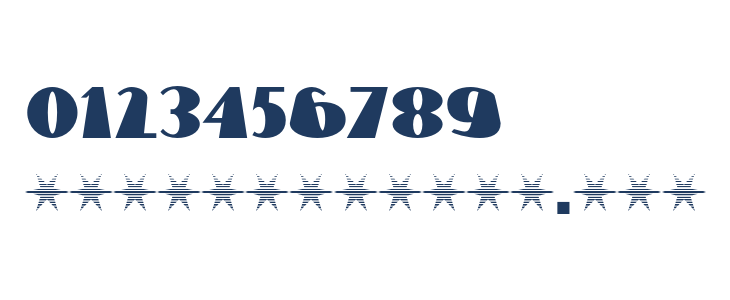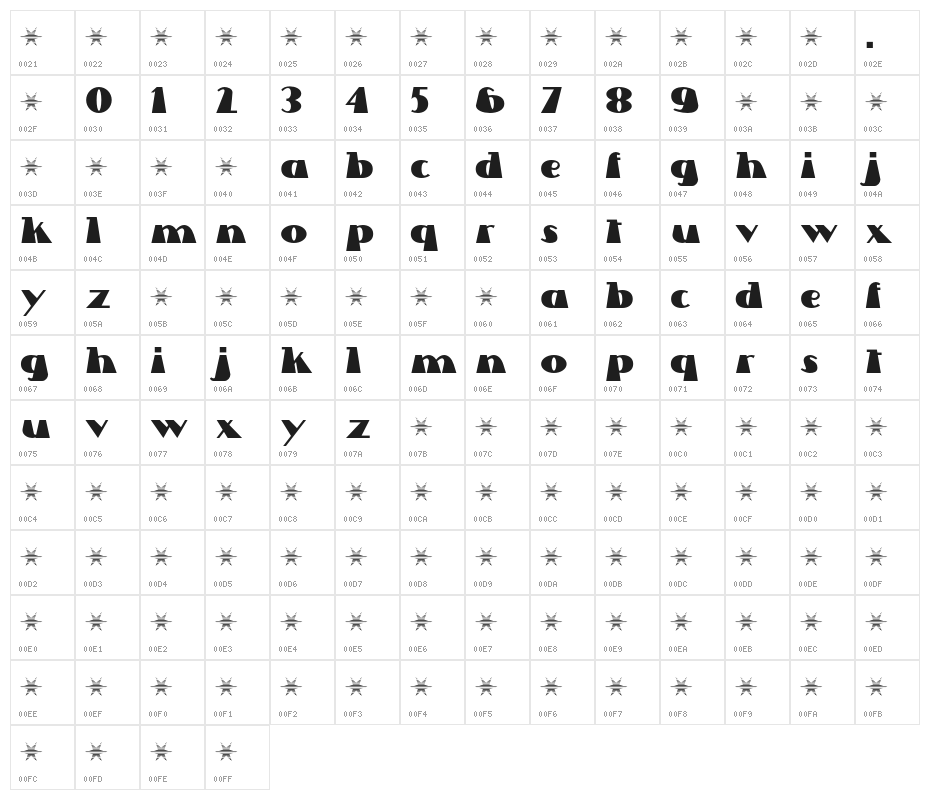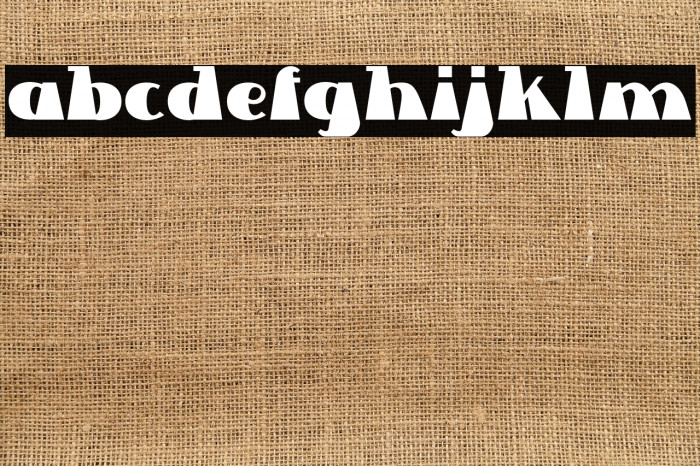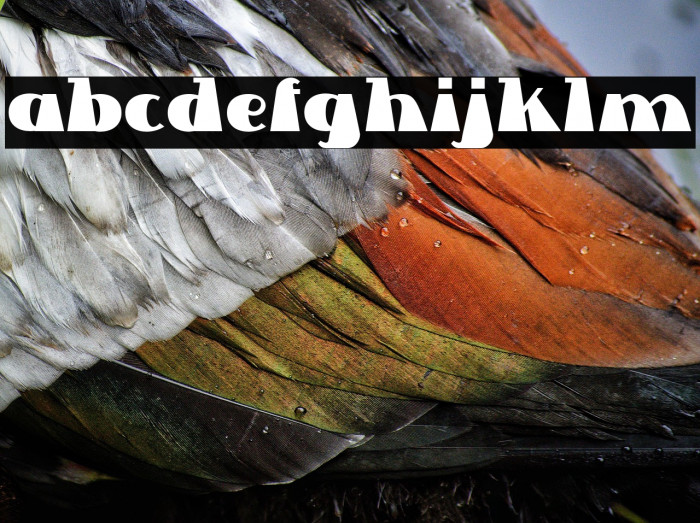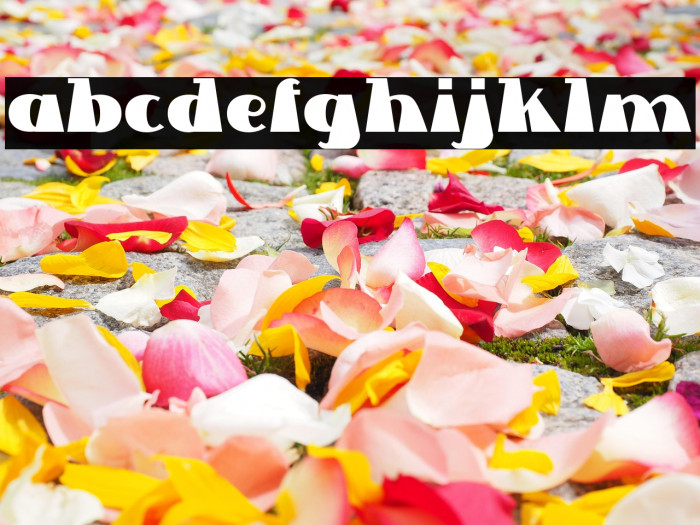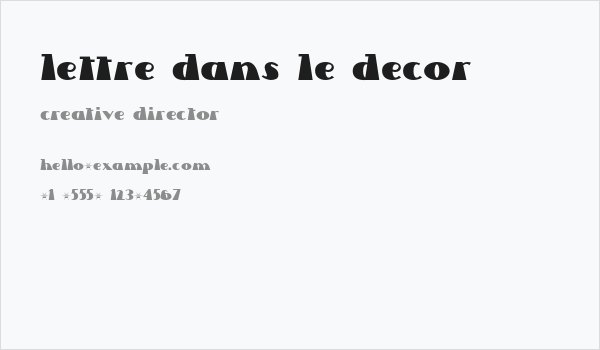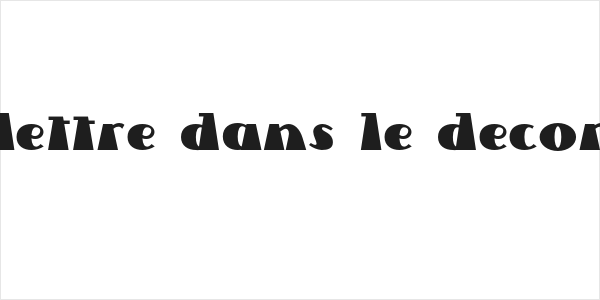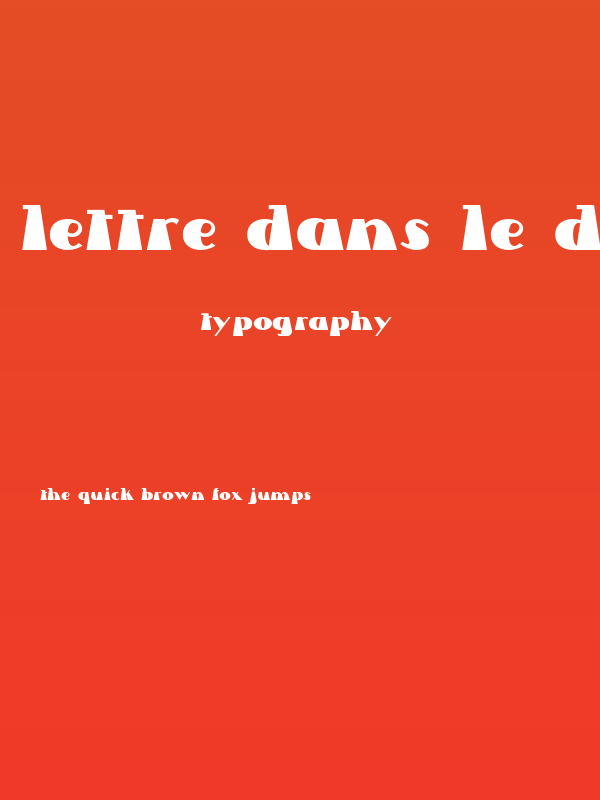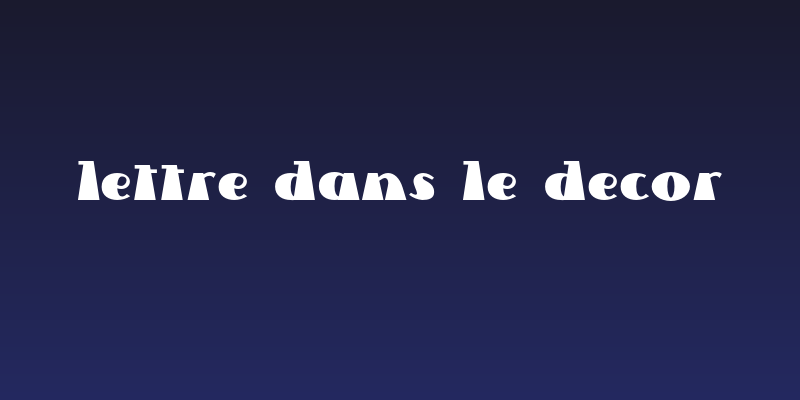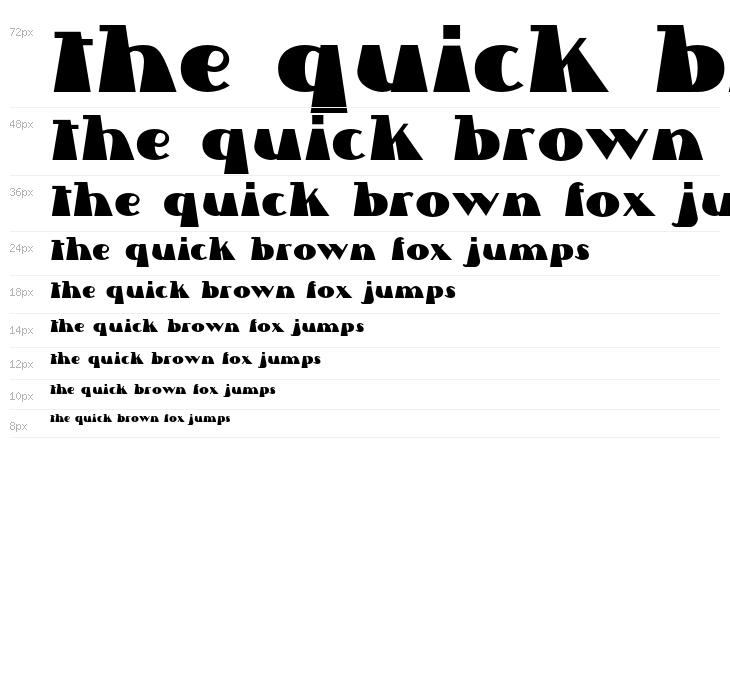
Lettre Dans Le Decor Font
Lettre Dans Le Decor Description
This font features a bold and dynamic style with thick, angular strokes that create a sense of movement and energy. The characters are uniquely designed with a mix of sharp and rounded edges, giving it a distinct and modern appearance. The uppercase and lowercase letters maintain a consistent weight, while the numbers are equally bold and impactful. The special characters are creatively integrated with decorative elements, adding to the font's overall aesthetic appeal. This font is perfect for making a statement and capturing attention with its striking design.